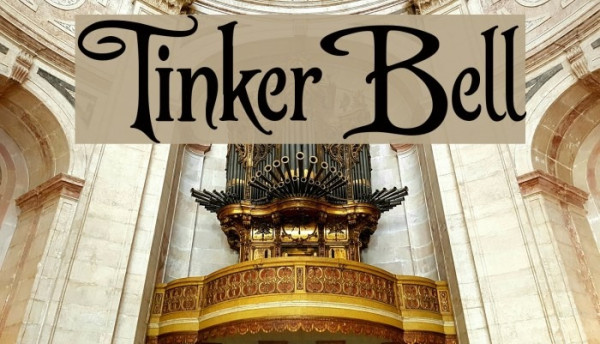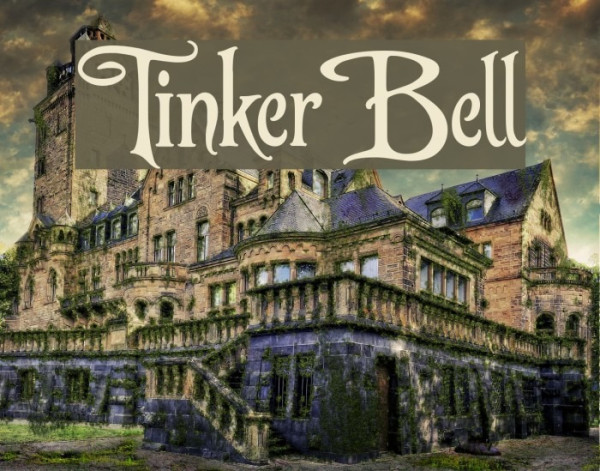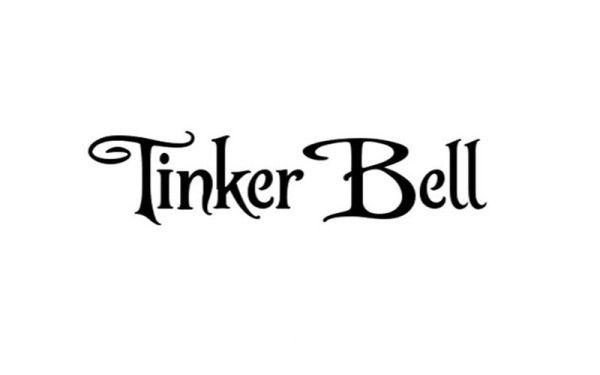
Tinkerbell Font, is an elegant and unique logo typeface based entirely on Tinker Bell. It is a computer-animated fantasy film series that was first released on October 28, 2008.
Tinkerbell Font